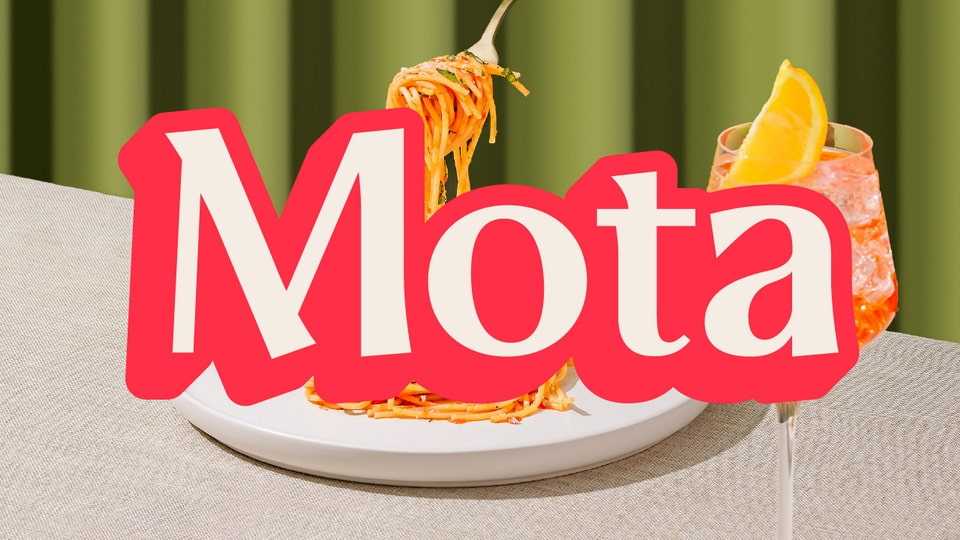
Download ZT Mota font, a bold and elegant typeface. ZT Mota has a temperamental character but is more flexible towards various stylistic designs, reflecting more in its graphics the transitional stage between classical serifs of varying proportions, leaning towards the stylized types of Roman culture.